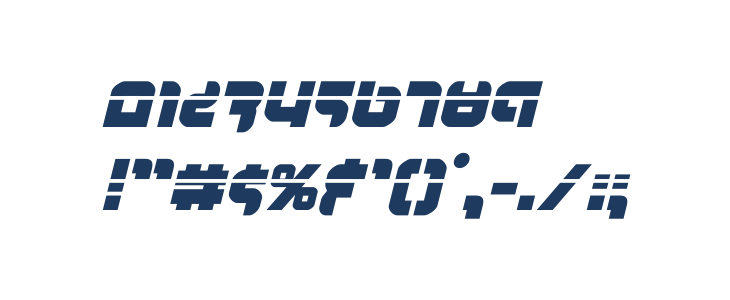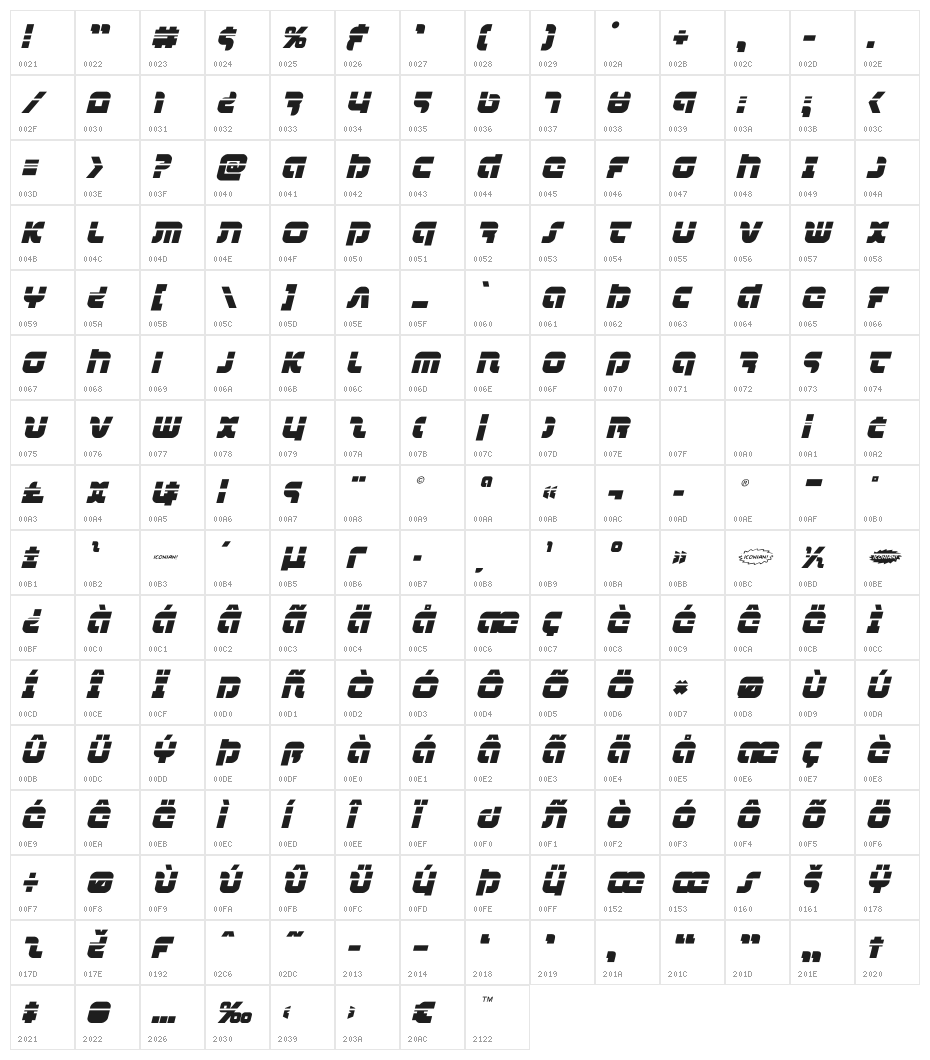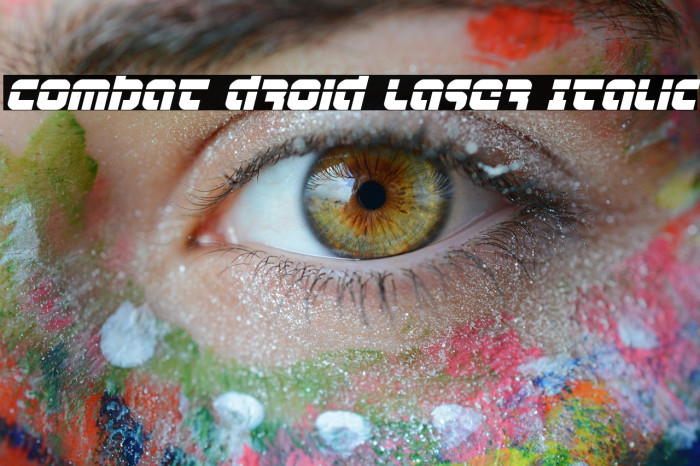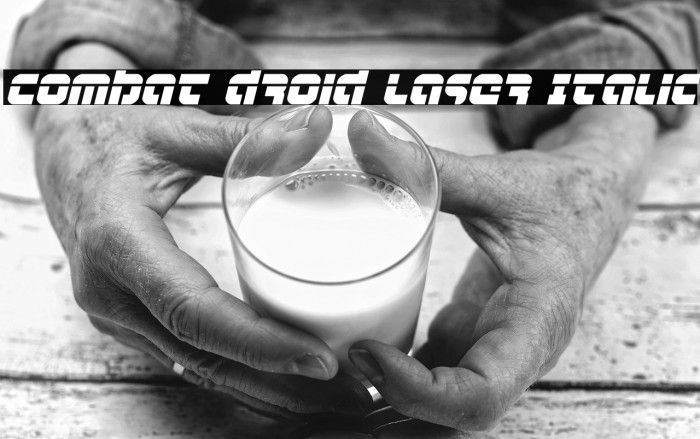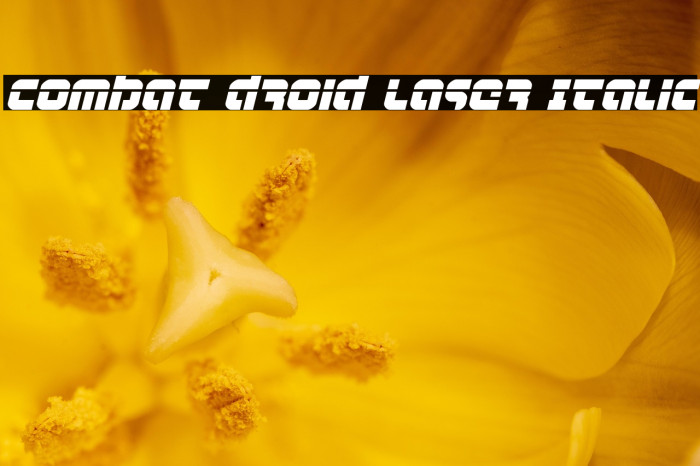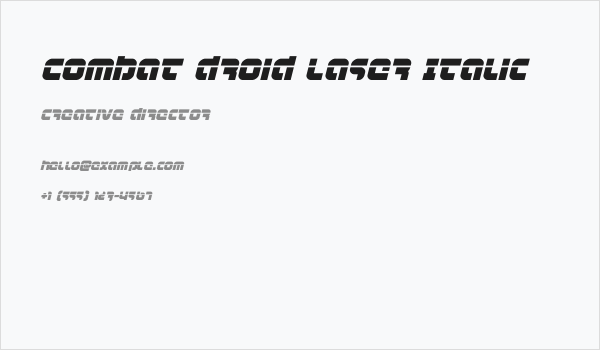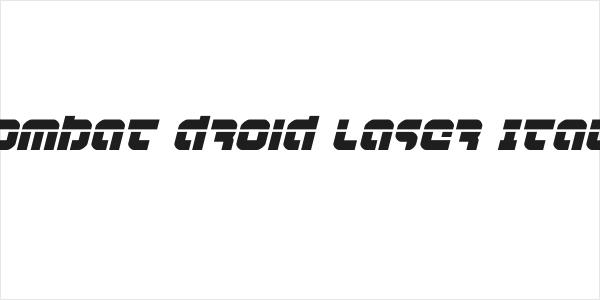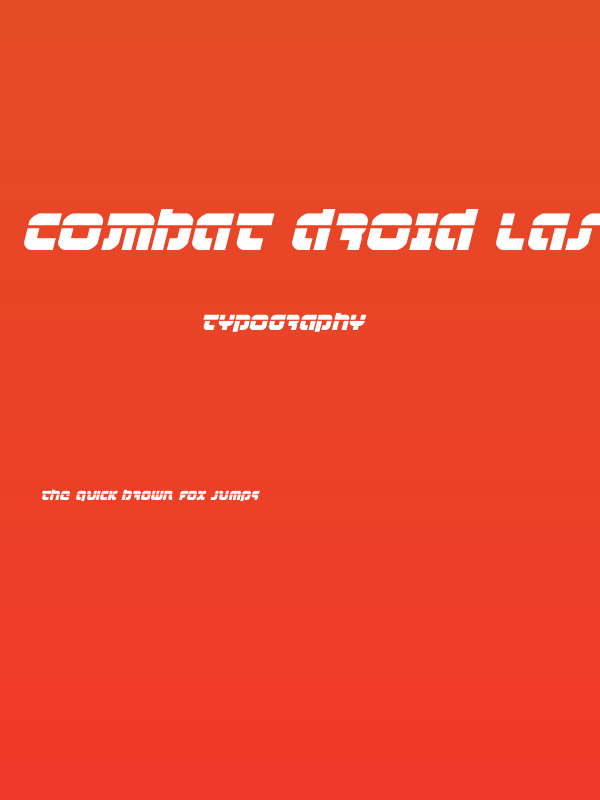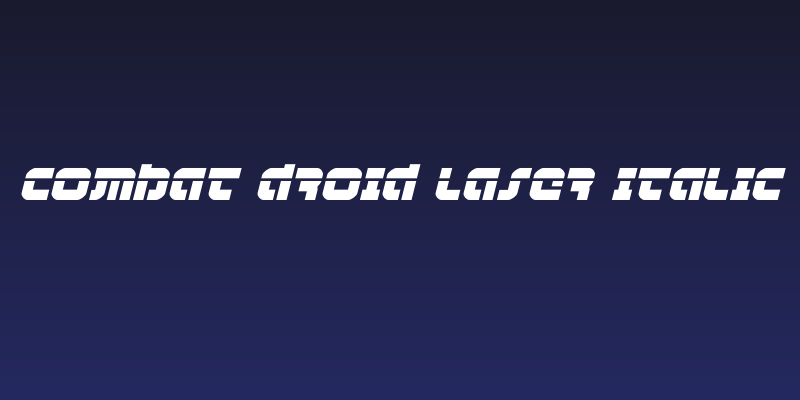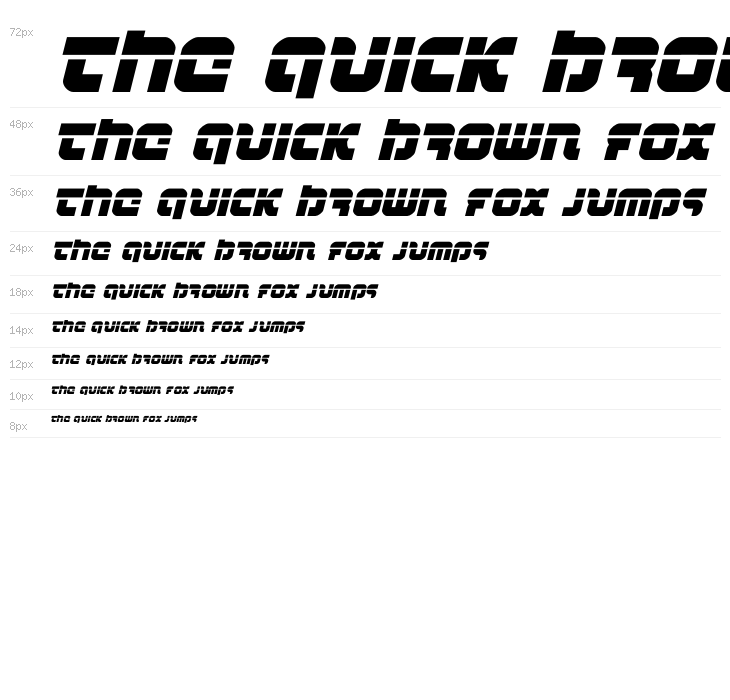
Combat Droid Laser Italic Font
Combat Droid Laser Italic Description
This font exhibits a futuristic and bold design, characterized by its angular and geometric shapes. The letters are slanted, giving it an italicized appearance, while maintaining a strong, solid presence. The strokes are thick and uniform, contributing to a high contrast look. The overall style is reminiscent of science fiction and technology themes, making it ideal for projects that require a modern and edgy aesthetic. The characters are tightly spaced, enhancing the compact and cohesive look of the text.
Overall StyleFuturistic
Proposed ProjectsIdeal for sci-fi themed posters, video game titles, tech branding, and futuristic designs.